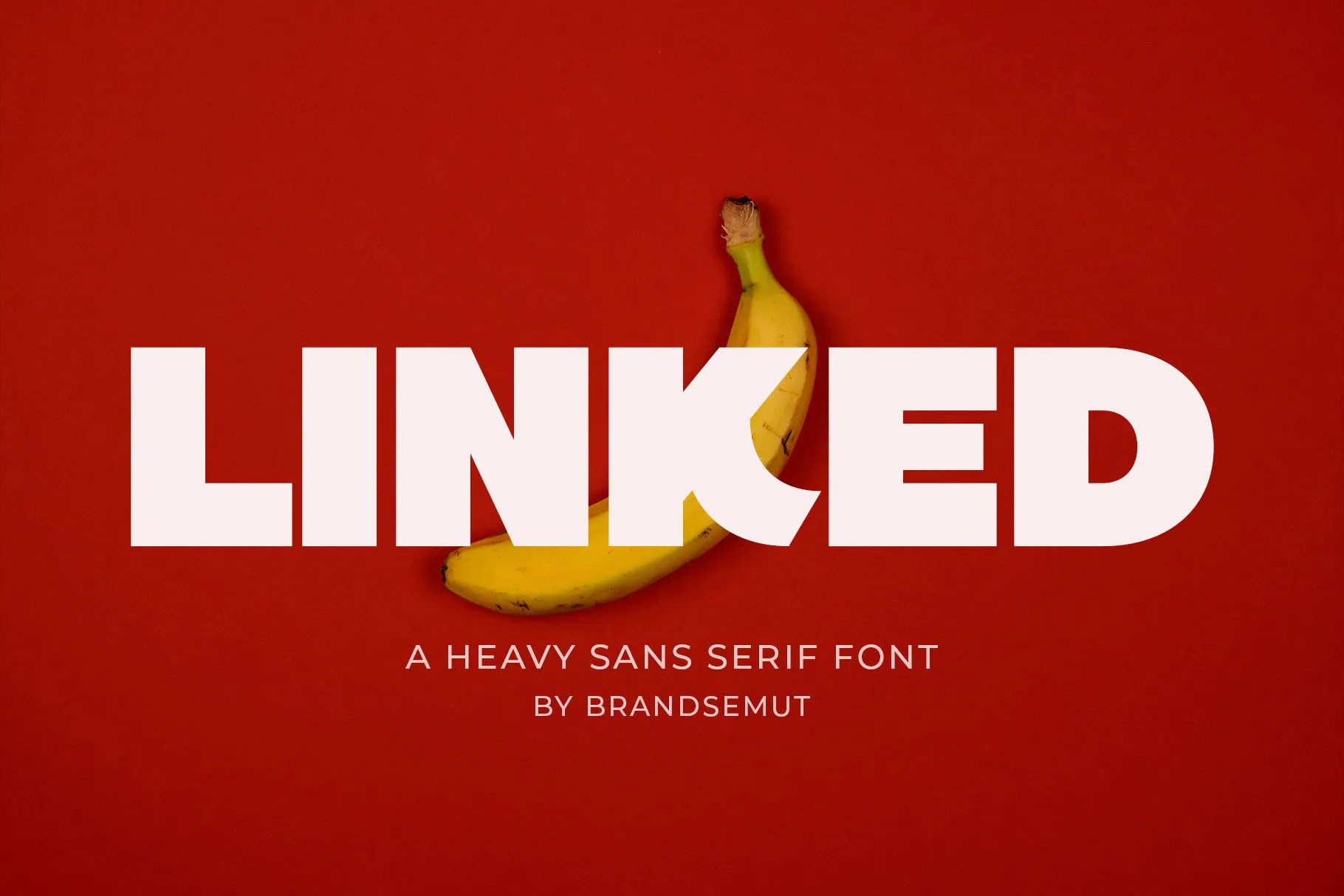
Linked Font
Linked is a sleek and contemporary typeface designed for a variety of creative projects. Ideal for use in headings, logos, branding, magazines, product packaging, and invitations, Linked offers clean lines and smooth curves that add a refined and polished look to your designs.
Key Features of Linked:
Modern and Simple Design: Linked combines simplicity with modern aesthetics, making it a versatile choice for various design needs.
Versatile Applications: Whether you’re designing bold headings, distinctive logos, or sophisticated packaging, Linked enhances your projects with its minimalist yet elegant style.
Clean Lines and Smooth Curves: The font’s design ensures a sleek and modern appearance, providing a subtle yet impactful touch of class.
Ideal Uses for Linked:
Headings and Logos: Make your headings and logos stand out with the modern and minimalist style of Linked.
Branding and Magazines: Enhance your branding materials and magazine layouts with the font’s clean and versatile design.
Product Packaging and Invitations: Add a modern touch to product packaging and invitations with Linked’s smooth and sophisticated lines.